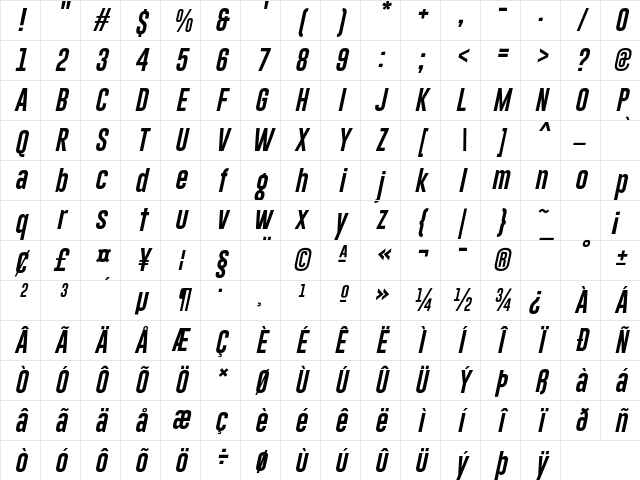
Gobold Lowplus Italic Free Font
Gobold Lowplus Italic
Designer: Situjuh Nazara
Design Context for Gobold Lowplus
Gobold Lowplus is a composed and adaptable typeface that performs quietly and consistently across a wide range of design contexts. The slanted form adds forward momentum and visual energy. Its bold stroke weight gives it real presence on the page.
Pro Tip: Use Gobold Lowplus for emphasis, pull quotes, and subheadings where its slanted energy can add rhythm to the layout.